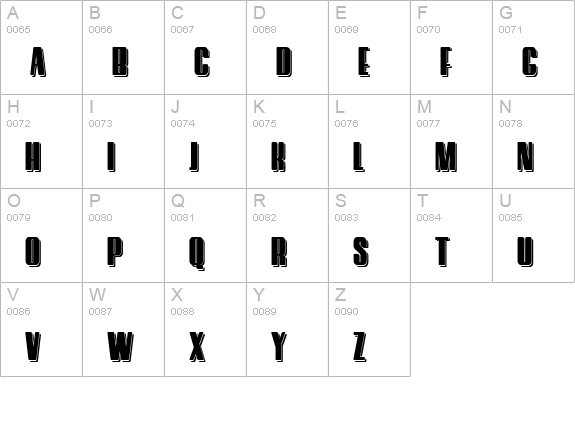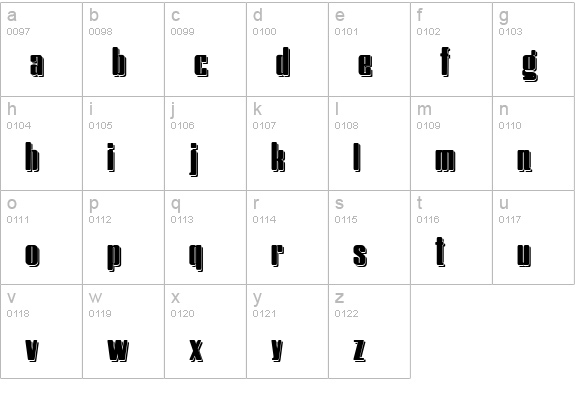
HostilShadow Font Details
Introducing HostilShadow, a captivating and mesmerizing font that will add a touch of mystery and intrigue to any design project. With its uniquely designed letters and edgy, shadow-like appearance, HostilShadow is the perfect choice for those seeking to create a bold and impactful visual statement. This font's intricate details and carefully crafted curves make it a standout choice for everything from logos and branding materials to posters and album covers. Its versatile nature allows it to seamlessly blend with various design styles, from modern and minimalist to dark and gothic. What sets HostilShadow apart is not only its visually stunning aesthetics but also its accessibility. This font is freely available to download at FontsMarket.com, making it an ideal choice for designers on a budget or those who simply appreciate the value of a great free font. Whether you're an experienced designer looking to add a unique touch to your latest project or a novice designer exploring the world of typography, HostilShadow offers endless creative possibilities. Let your imagination run wild as you experiment with this captivating font and watch as it transforms your designs into captivating works of art. Don't miss out on the opportunity to make a lasting impression with HostilShadow. Download it today for free at FontsMarket.com and elevate your design game to new heights.